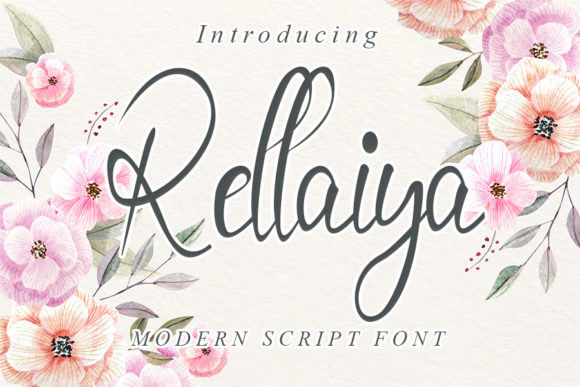
Rellaiya: A Sweet and Elegant Calligraphy Font for Branding
As a graphic designer, I recently had the pleasure of working on a branding project for a charming local café. The client was looking for a font that would capture the café's cozy, inviting atmosphere while also standing out in a visually crowded market. Enter Rellaiya, a sweet and elegant calligraphy font that quickly became the heart of our design.
First Impressions with Rellaiya
When I first opened my design software and started testing Rellaiya, I was immediately struck by its distinct and well-rounded letters. Each character felt like a work of art, with a fluid, hand-drawn quality that exudes both elegance and warmth. This font is not just a set of characters; it’s a visual experience that can truly elevate a brand.
Testing Rellaiya in Logo Design
The first step in any branding project is to create a logo. I began by sketching some rough ideas and then brought them into the digital realm. Rellaiya’s versatility shone through as I experimented with different layouts. The font’s graceful curves and balanced proportions made it perfect for a logotype. I used it for the café’s name, and it instantly gave the logo a personal, handcrafted feel.
Rellaiya in Brand Identity and Packaging
Once the logo was finalized, I moved on to the broader brand identity. Rellaiya played a key role in creating a cohesive and memorable look. For the business cards, I used Rellaiya for the café’s name and a clean, modern sans serif for the contact details. This combination created a beautiful balance between elegance and readability.
For the packaging, Rellaiya added a touch of sophistication to the product labels. Whether it was for coffee bags or pastry boxes, the font’s distinct style made each item feel special. The café’s customers were drawn to the packaging, and the feedback was overwhelmingly positive.
Rellaiya in Social Media and Digital Design
In today’s digital age, social media presence is crucial. I used Rellaiya for the café’s Instagram posts and stories, where its unique style stood out in the feed. The font’s legibility at various sizes made it ideal for both short captions and longer, more detailed posts. It also worked beautifully in the café’s website header, welcoming visitors with a warm and inviting message.
Practical Advice for Using Rellaiya
Before fully integrating Rellaiya into a brand system, it’s important to test it in various contexts. Here are a few tips:
- Readability Check: Ensure the font is readable at different sizes and on different backgrounds. Rellaiya’s well-rounded letters generally perform well, but it’s always good to double-check.
- Font Pairing: Consider pairing Rellaiya with a clean, modern sans serif for a balanced and professional look. This combination works well for both print and digital applications.
- Consistency: Use Rellaiya consistently across all brand materials to build recognition and trust. Consistency is key in establishing a strong brand identity.
Final Observations and Recommendations
Rellaiya is an excellent choice for brands that want to convey a sense of elegance and personal touch. Its versatile style makes it suitable for a wide range of applications, from logos and packaging to social media and web design. Just remember to test it thoroughly and pair it thoughtfully to ensure the best results.
Whether you’re designing for a café, a boutique, or any other small business, Rellaiya can be a valuable addition to your design toolkit. Its sweet and elegant calligraphy style is sure to leave a lasting impression on your audience.